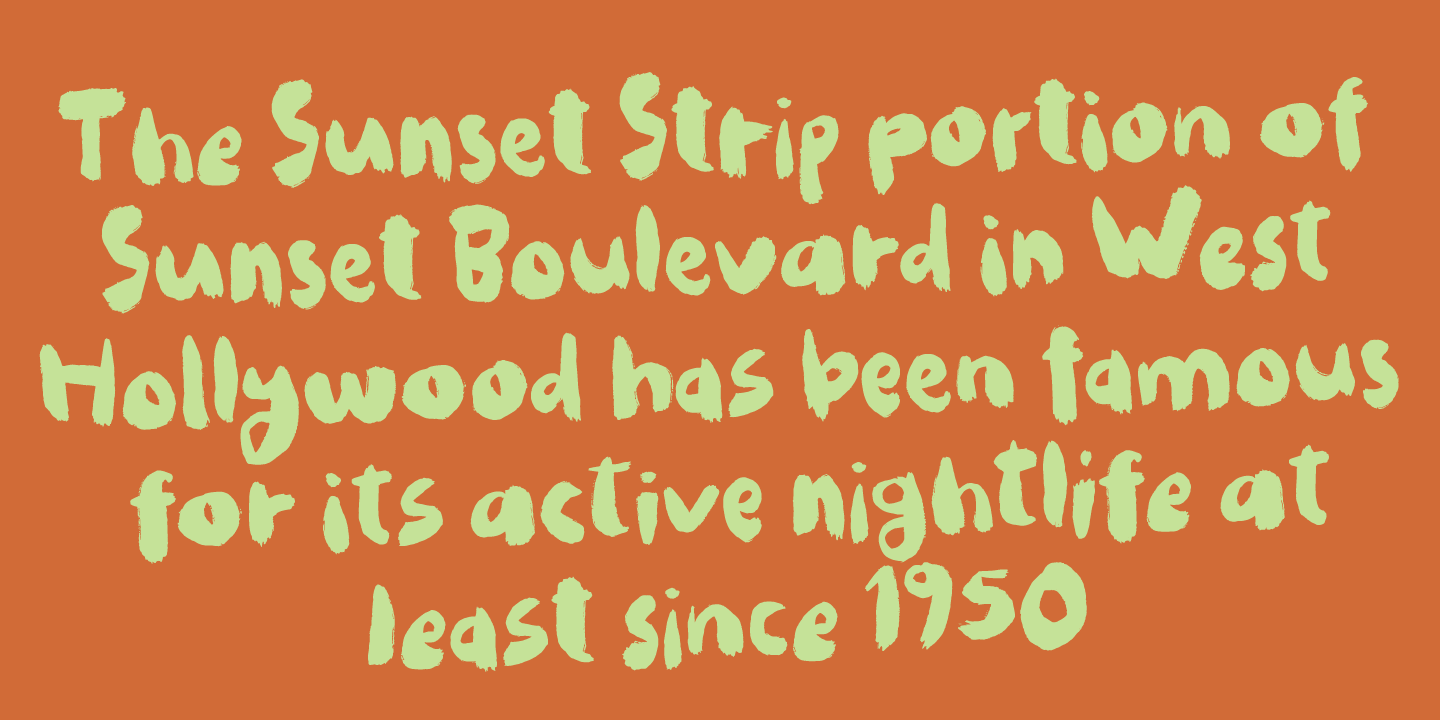
Step right up to the circus of typography with Pauseklovn Font Free Download – a delightfully quirky display face that captures the playful energy of vintage carnival posters and clown signage. This whimsical typeface bounces between mischief and charm with its irregular letterforms, perfect for designs needing a touch of humor and retro fun.
Why Pauseklovn Font Stands Out
Pauseklovn Font Free Download delivers:
Playful, hand-painted letterforms
Perfect balance of chaos and readability
Multiple stylistic alternates for variation
Instant nostalgic circus appeal
Pauseklovn Font Free Download Technical Features:
Uppercase characters with organic imperfections
Numbers and basic punctuation
Includes bonus carnival doodles
Big Top Applications:
Circus/carnival promotions
Vintage toy packaging
Playful event posters
Children's book titles
Retro-inspired branding
Enjoy Pauseklovn Font Free Download for:
Client entertainment branding
Design Tip: Layer with distressed textures and primary colors for authentic sideshow impact!